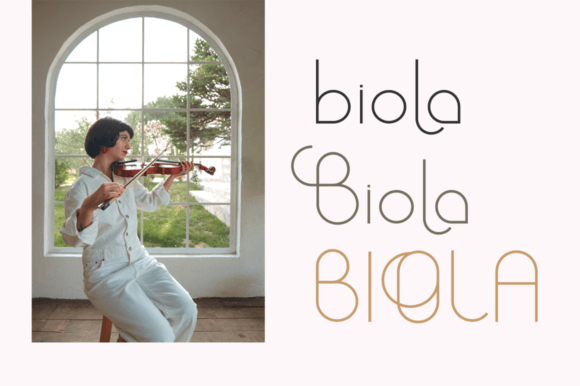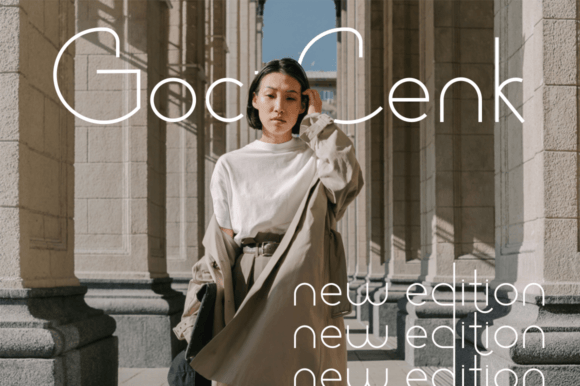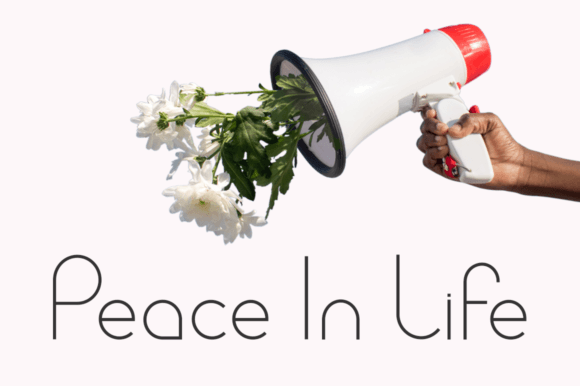
Introduction to Raloth Font
Remember that moment when you finally nailed the design for your client’s business card, and everything fell into place? The perfect balance of typography, color, and composition. That’s what Raloth Font is all about – creating a visual identity that speaks volumes. This modern display font is a game-changer for designers looking to elevate their creative projects.
With its unique blend of sans-serif and rounded ligatures, Raloth Font offers a level of sophistication and elegance that’s hard to find in other fonts. Whether you’re working on a fashion brand, a music project, or an architectural design, Raloth Font is the perfect design resource to help you stand out from the crowd. And the best part? It’s available for free download, making it an accessible high-quality asset for designers of all levels.
Key Features of Raloth Font
- High-quality, professional font ideal for creative projects and design resources.
- Unique, modern design with a distinctive style, perfect for making a statement in your work.
- Perfect for use in graphic design, web design, and digital art projects.
Honest Review: Raloth Font
I recently had the chance to work with the Raloth Font, and I must say it’s a fantastic addition to any designer’s toolkit. As a design resource, it’s perfect for creative projects that require a unique touch.
Here’s what I like about the Raloth Font: ✨
- High-quality font with a crisp and clear appearance
- Perfect for use on a transparent background, allowing the design to take center stage
However, there are a few limitations to be aware of: ⚠️
- Limited character set, which may not be ideal for projects that require extensive text
- No bold or italic variations available, which may limit its use in certain contexts
Overall, I’m impressed with the Raloth Font and would highly recommend it for designers looking for a unique and high-quality font for their creative projects. While it may have some limitations, it’s a solid addition to any design resource library.
Some tips for getting the most out of the Raloth Font include using it for titles, headings, and body text in creative projects. Common use cases include designing wedding invitations, creating menus for restaurants, and crafting business cards.